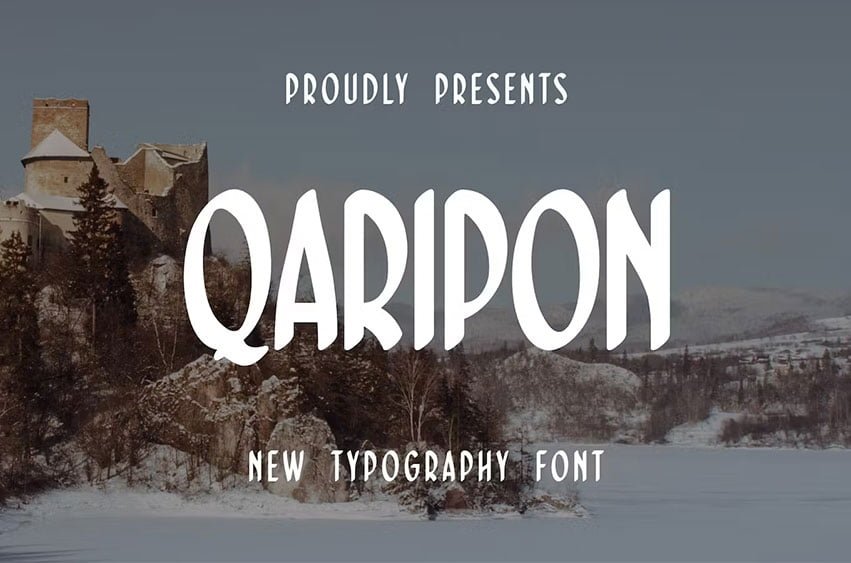
Qaripon Font Typography with a thick and thin appearance that is suitable for the needs of film titles, it can also be used for writing calligraphic descriptions or something like that.